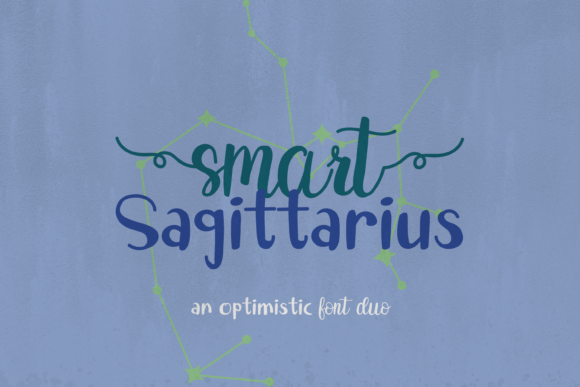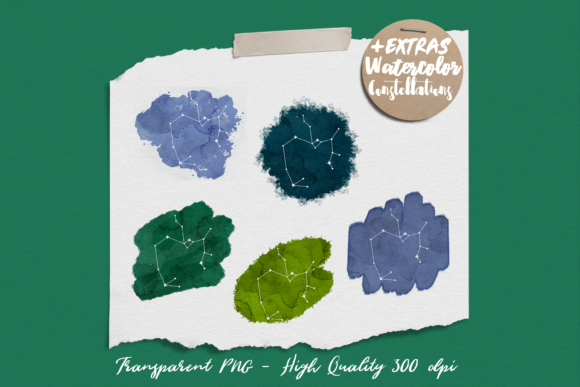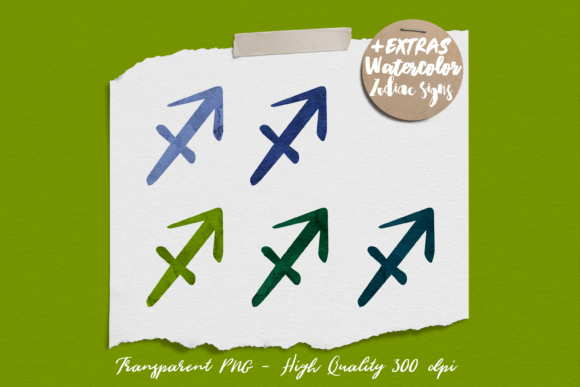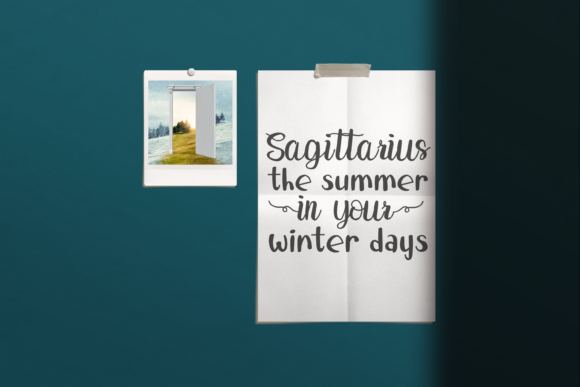
About Smart Sagittarius Duo Font
Smart Sagittarius Duo consists of two styles of handwritten font, designed to complement each other perfectly. Together or apart, these fonts are ideal for adding a chic and cheery touch to your crafts. Smart Sagittarius Duo is PUA encoded which means you can access all of the glyphs and swashes with ease!